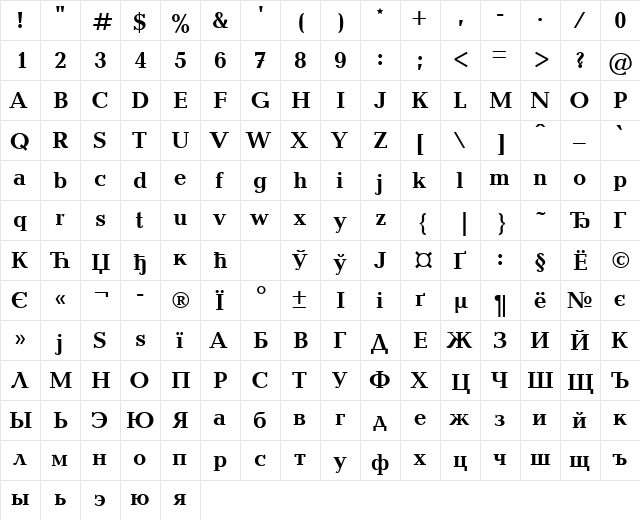
BalticaCTT Bold
Design Context for BalticaCTT Typeface
BalticaCTT offers clean, dependable letterforms without strong stylistic allegiance, making it a practical choice for designers who need flexibility. Its bold stroke weight gives it real presence on the page.